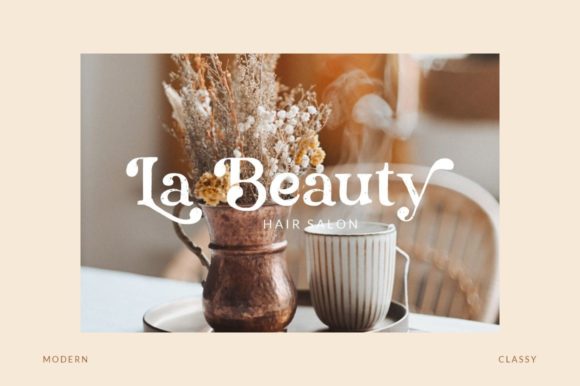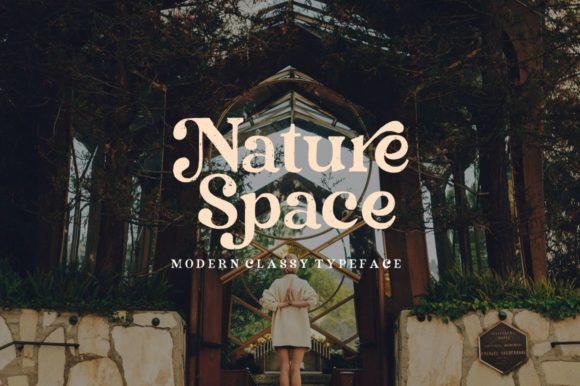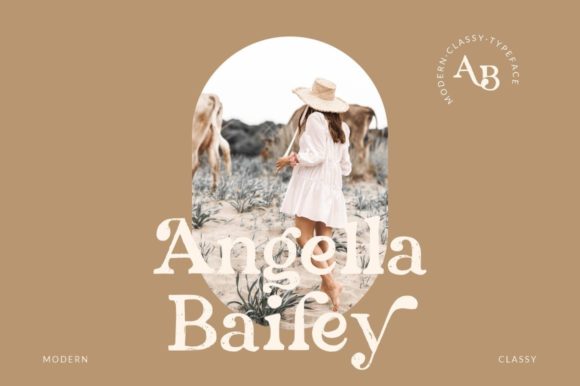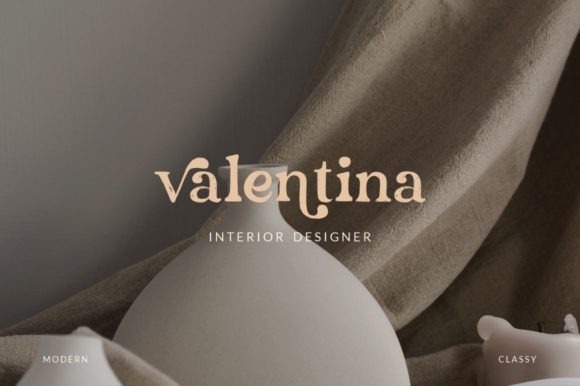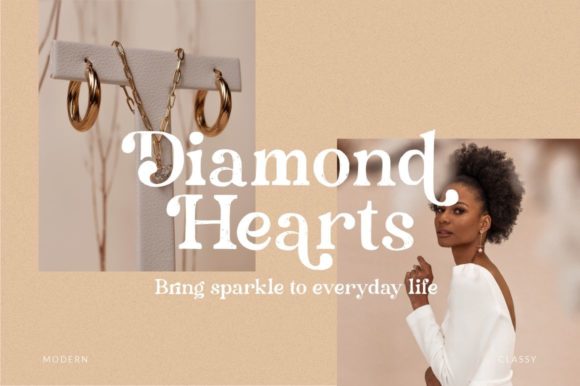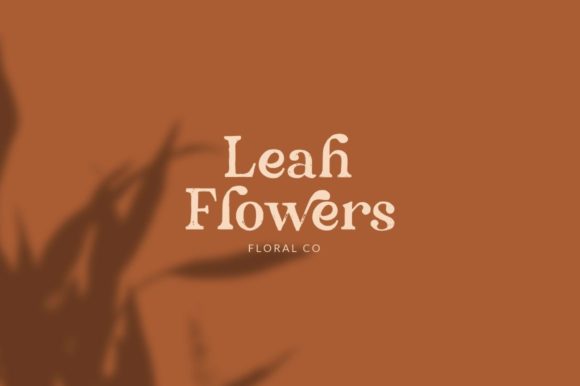
Introduction to Cherish & Love Font
Cherish & Love is a trendy and stylish serif font.
It is PUA encoded which means you can access all of the glyphs and swashes with ease Fall in love with its incredibly versatile style and use it to create spectacular designs.